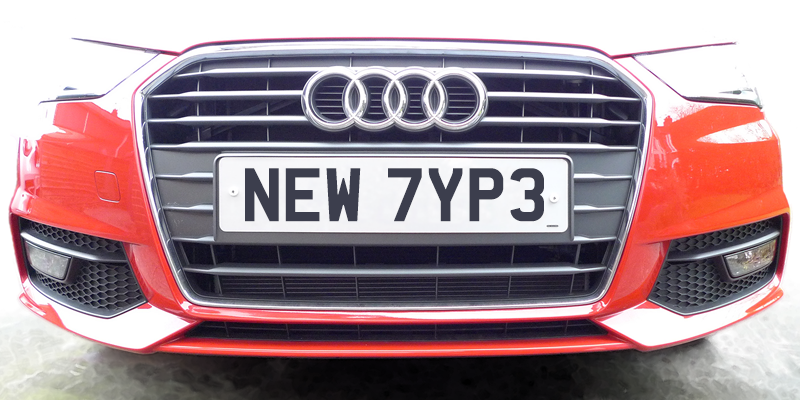
Charles Wright
Charles Wright Typeface
K-Type Charles Wright is a full typeface in the style of lettering used for British vehicle plates. The standard Bold ‘2001’ style is free for personal use, and has an uppercase which conforms to British registration plate specifications for character heights of 79mm and widths of 50mm.